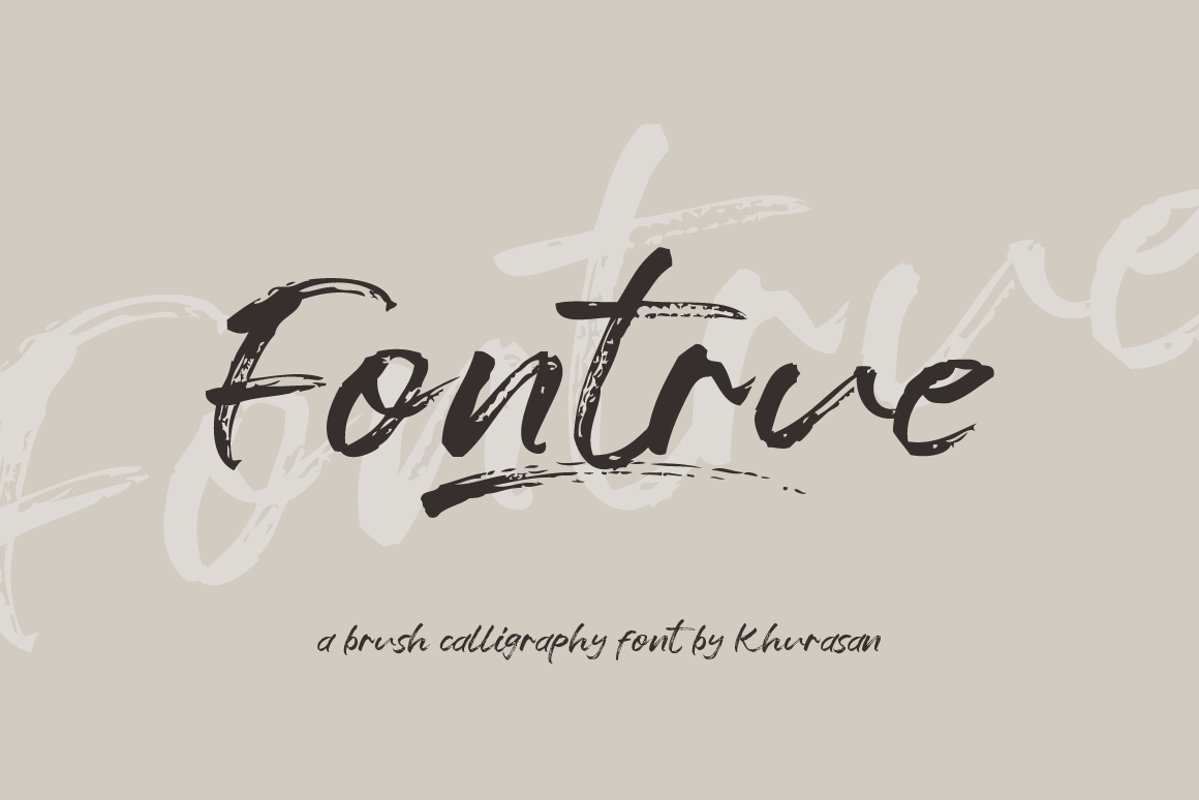
Fontrue is a fresh handwritten font brush, elegant and vintage feel character set. The Fontrue font includes a full set capital and lowercase letters, as well as multi-lingual support, currency figures, numerals, & punctuation.